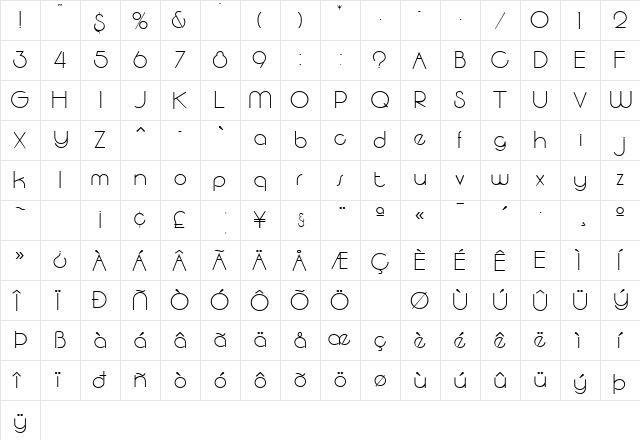
Moonbeam Regular
Design Context for Moonbeam Typeface
Moonbeam offers clean, dependable letterforms without strong stylistic allegiance, making it a practical choice for designers who need flexibility.
Pro Tip: Pair Moonbeam with a font of contrasting weight or personality to build a more expressive typographic hierarchy.